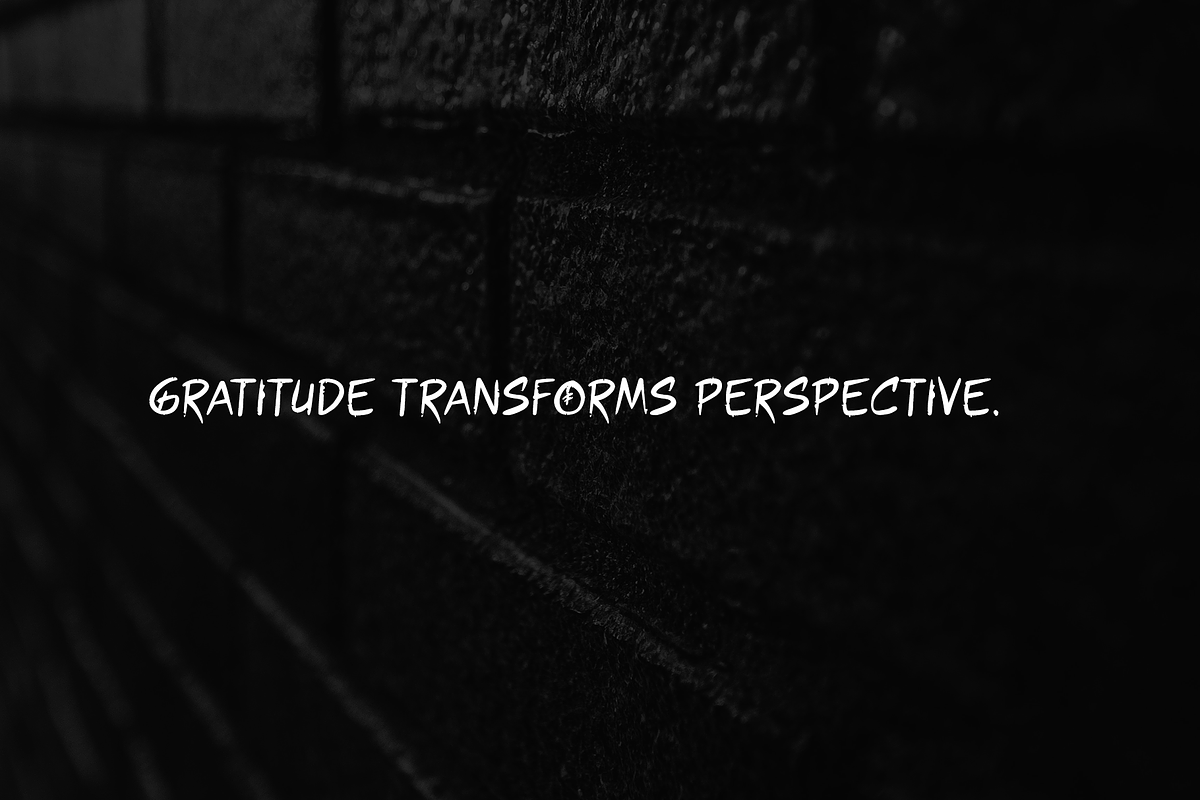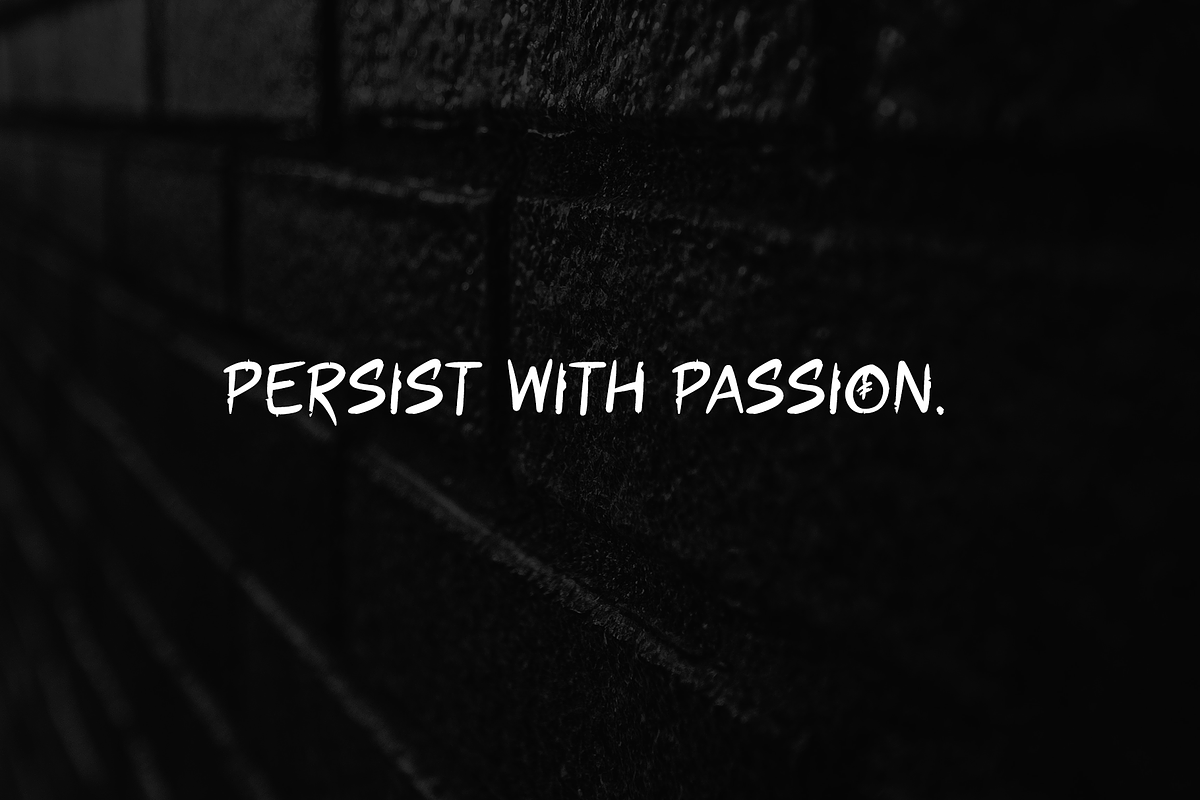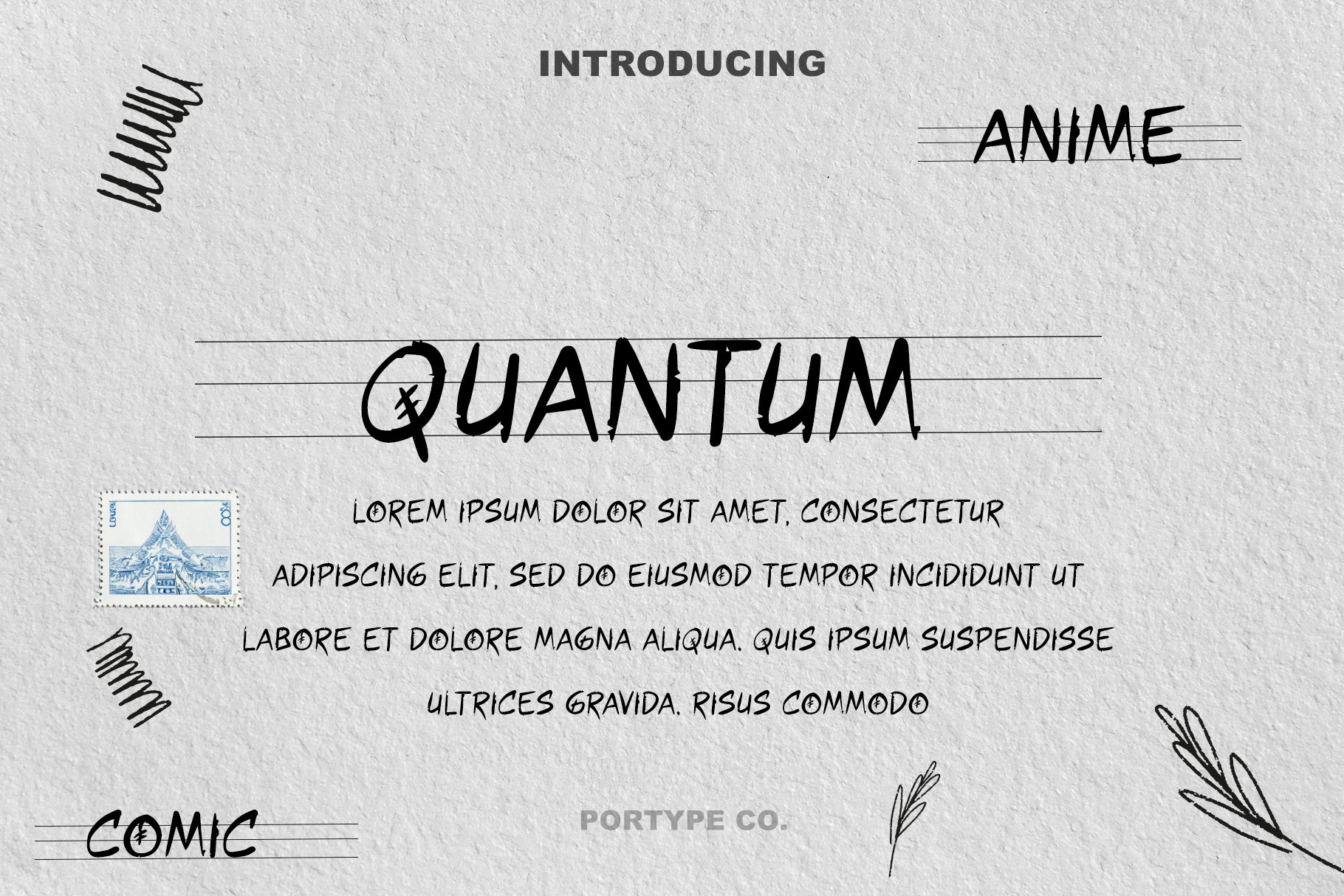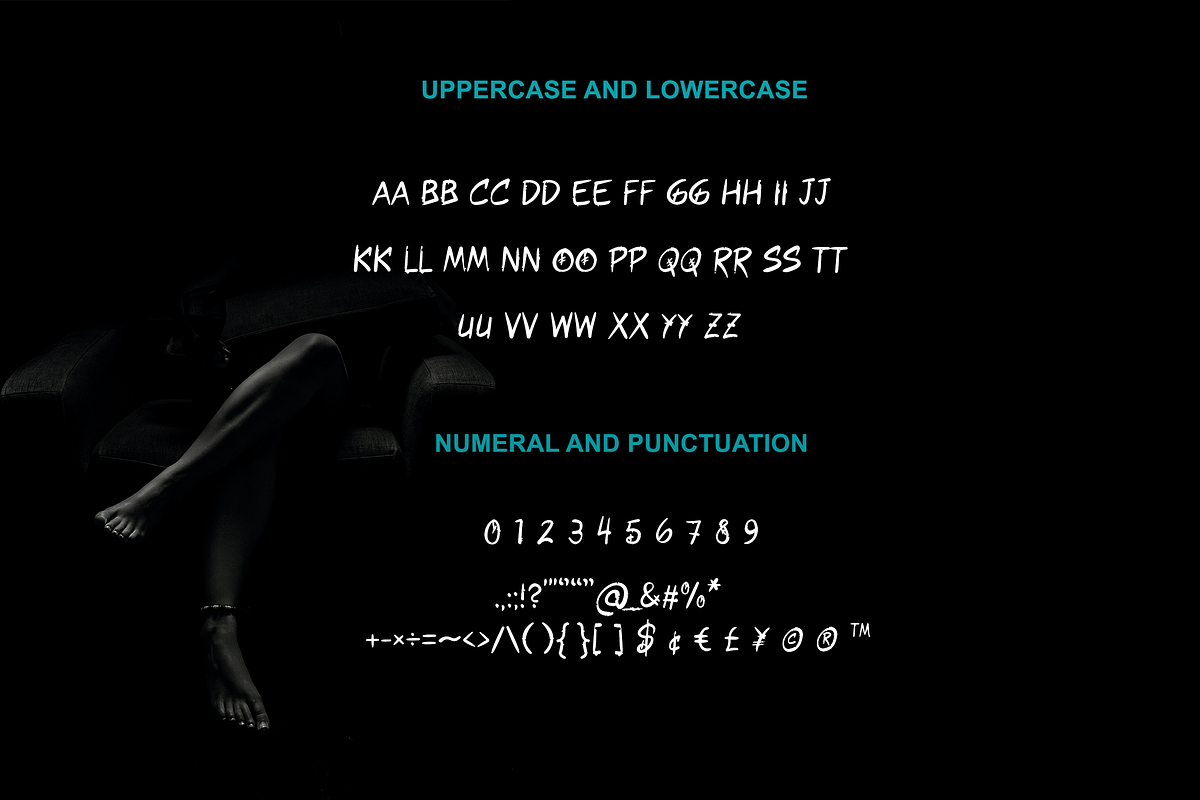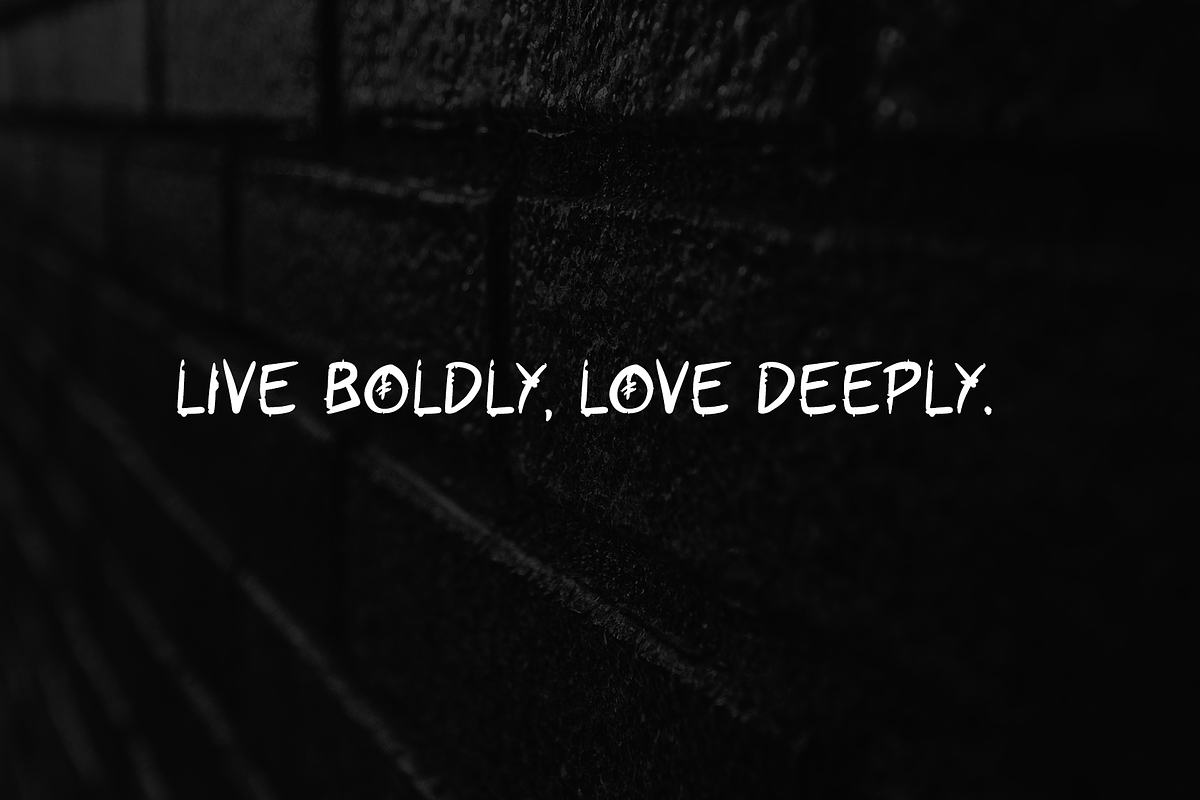
Quantum Font- Comic
Quantum Font Unveiling the Dimensions of Typography is a groundbreaking exploration that delves into the innovative realm of font design, offering readers a captivating journey into the convergence of science and artistry. This illuminating book unravels the esoteric world of quantum-inspired typography, where letters transcend mere visual representation to embody the essence of quantum principles.
Through meticulous research and visual elucidation, "Quantum Font" unveils how typography intersects with quantum theory, portraying letters as energetic particles entangled within the fabric of design. From the quantum-inspired shapes to the interplay of color and form, each letter becomes a quantum entity, carrying its own vibrational significance.
This comprehensive guide doesn't merely illustrate the aesthetic evolution of typography but also explores its cognitive impact. Readers will discover how these innovative fonts influence perception, cognition, and readability, ushering in a new era where design and technology converge to redefine communication.
With stunning visuals, insightful analyses, and practical applications, "Quantum Font" serves as a gateway for designers, typographers, and enthusiasts alike to comprehend the transformative power of quantum-inspired typography in shaping our visual landscape and communication methods.